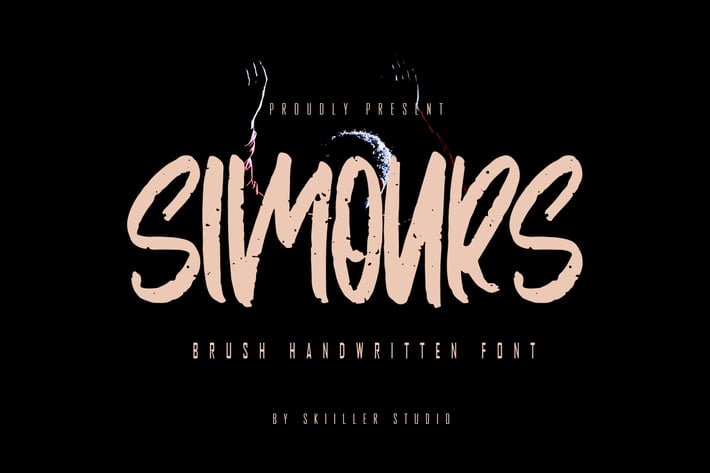
Simours - Brush Handwritten Font
Simours Font Brushee is a modern textured font. It is suitable for food posters, for logos, music covers, clothing, and many cool design projects.